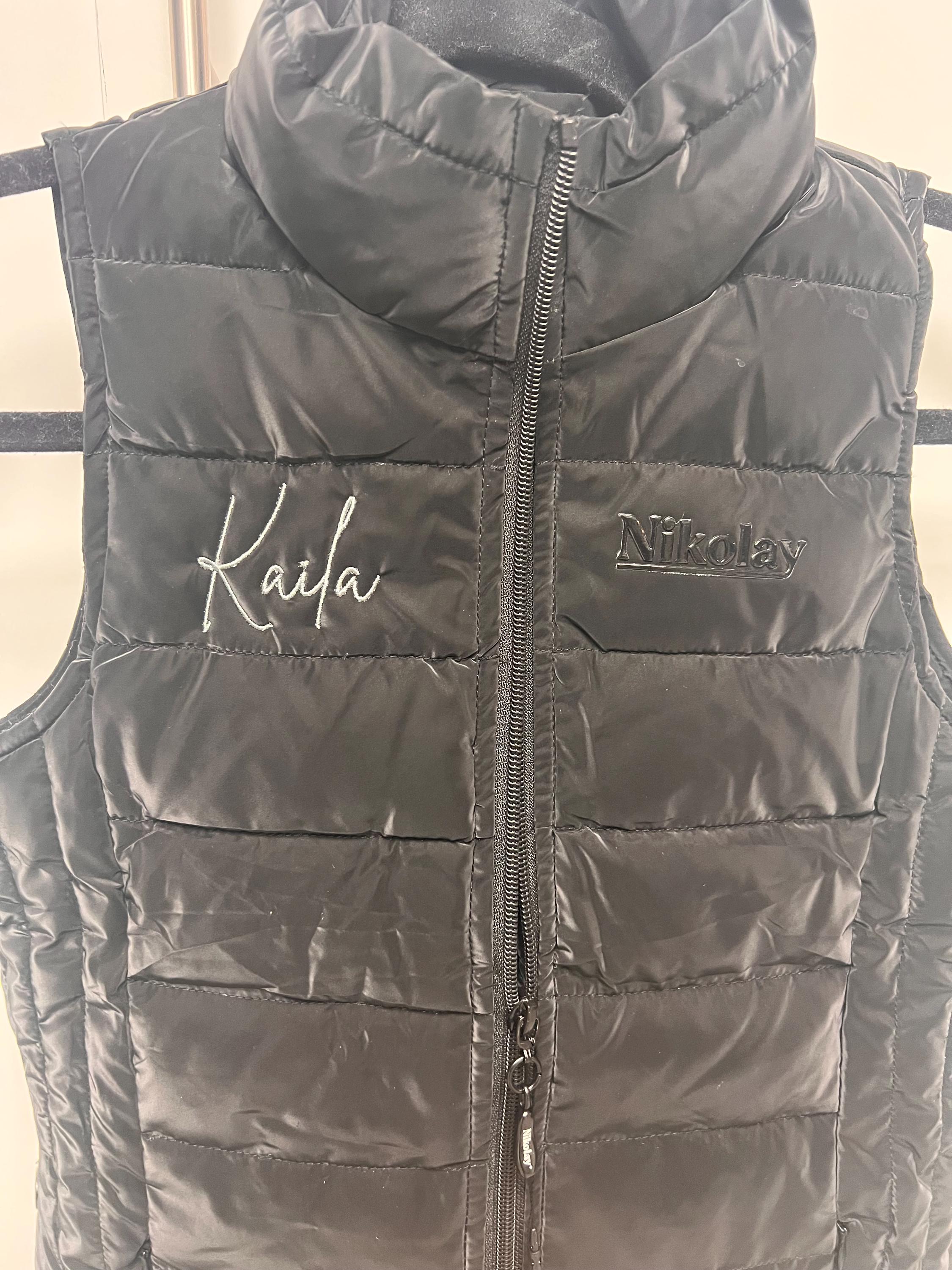
Font stitched out really well, smooth satin columns, clean curves, and no thread issues, even on smaller details. Held its shape nicely on a vest with minimal distortion. Great option for script names at this size.
It stitched out really good
love this font!! can't wait to use it more